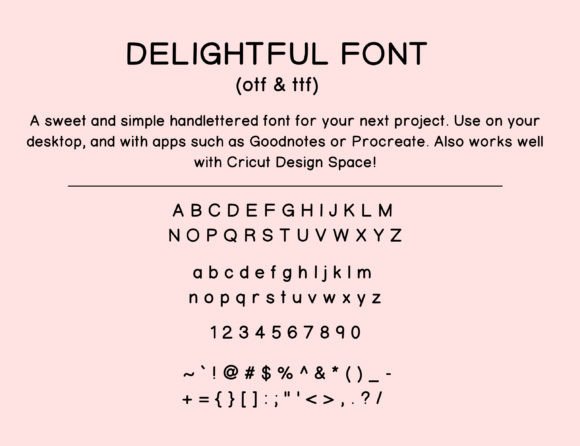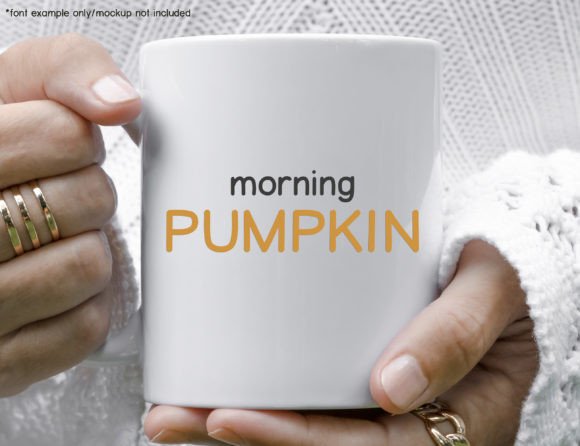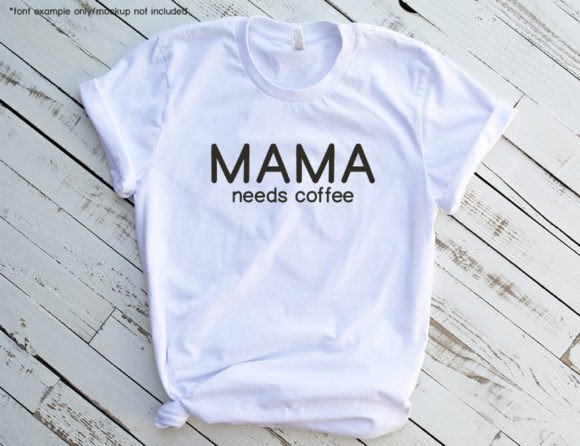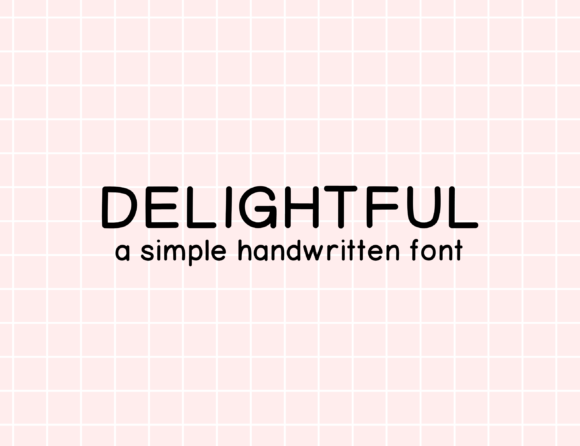
Introducing Delightful Font: The Playful and Simple Handwritten Font for Creative Projects
Are you a designer, crafter, or creative enthusiast looking for a font that adds a touch of playfulness and simplicity to your projects? Look no further than Delightful Font, a hand-drawn handwritten font that’s perfect for a variety of uses. In this article, we’ll explore the features and benefits of Delightful Font, and how it can elevate your creative projects.
What is Delightful Font?
Delightful Font is a playful and simple handwritten font that’s great for note-taking in GoodNotes, using in Procreate, your Cricut, and for many other projects. This hand-drawn style works well for multiple uses and helps achieve a super cute look. The font is designed to be easy to read and use, making it perfect for a wide range of creative projects.
Key Features of Delightful Font
- Playful and Simple: Delightful Font has a playful and simple design that’s perfect for adding a touch of whimsy to your projects.
- Hand-Drawn: The font is hand-drawn, giving it a unique and personal touch.
- Easy to Read: The font is designed to be easy to read, making it perfect for note-taking and other uses where legibility is important.
- Versatile: Delightful Font works well for multiple uses, including digital and print projects.
Uses for Delightful Font
Delightful Font is a versatile font that can be used for a wide range of creative projects, including:
- Note-taking: Use Delightful Font in GoodNotes or other digital note-taking apps to add a touch of personality to your notes.
- Digital Art: Use Delightful Font in Procreate or other digital art apps to add text and captions to your artwork.
- Cricut Projects: Use Delightful Font with your Cricut machine to create custom signs, banners, and other projects.
- Journaling: Use Delightful Font in your journal or planner to add a touch of whimsy and personality.
- Greeting Cards: Use Delightful Font to create custom greeting cards and invitations.
Benefits of Using Delightful Font
There are many benefits to using Delightful Font in your creative projects, including:
- Unique and Personal Touch: Delightful Font adds a unique and personal touch to your projects, making them stand out from the crowd.
- Easy to Use: The font is easy to use and works well with a variety of creative apps and tools.
- Versatile: Delightful Font works well for multiple uses, making it a great addition to your font library.
- Cute and Playful: The font has a super cute and playful design that’s perfect for adding a touch of whimsy to your projects.
Tips for Using Delightful Font
Here are a few tips for using Delightful Font in your creative projects:
- Experiment with Different Sizes: Try using Delightful Font in different sizes to add visual interest to your projects.
- Combine with Other Fonts: Combine Delightful Font with other fonts to create a unique and interesting look.
- Use in Combination with Images: Use Delightful Font in combination with images to add text and captions to your artwork.
Delightful Font is a playful and simple handwritten font that’s perfect for a wide range of creative projects. With its hand-drawn design, easy-to-read style, and versatile uses, Delightful Font is a great addition to any font library. Whether you’re a designer, crafter, or creative enthusiast, Delightful Font is sure to bring a touch of whimsy and personality to your projects.